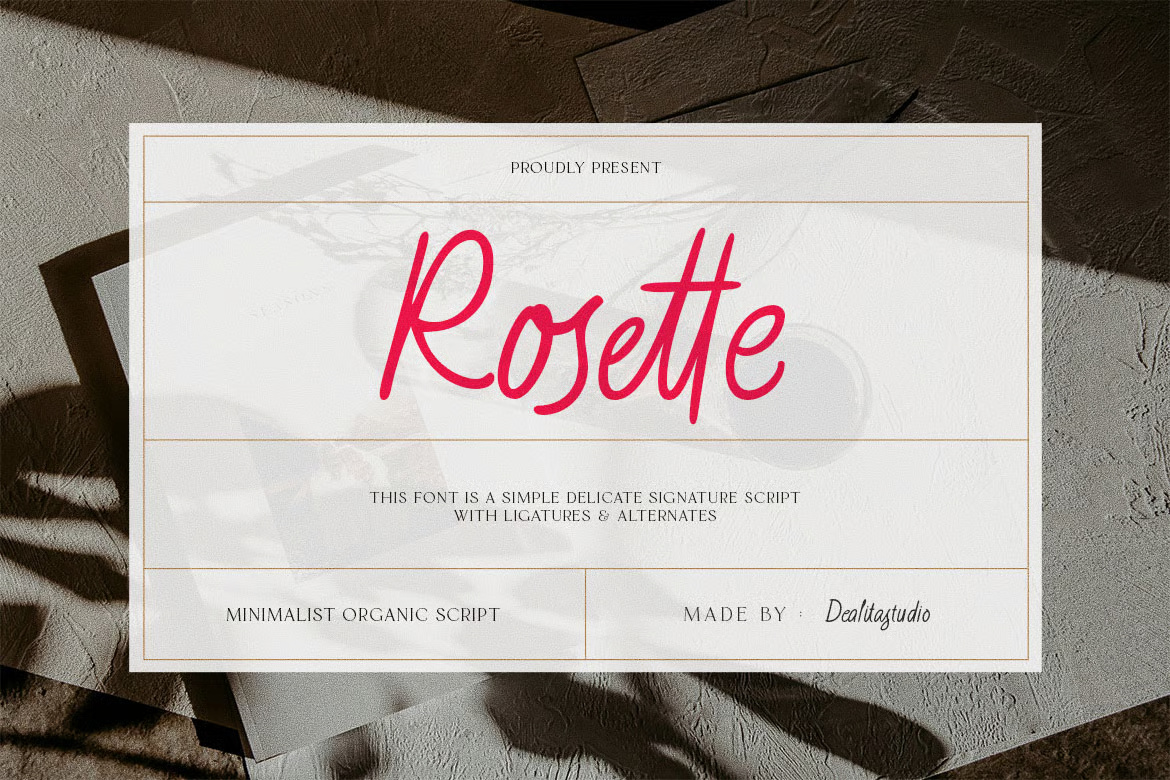
Rosette Handwriting Font
Rosette is an elegant, organic handwriting font that adds warmth, authenticity, and charm to personal projects, blogs, and branding.
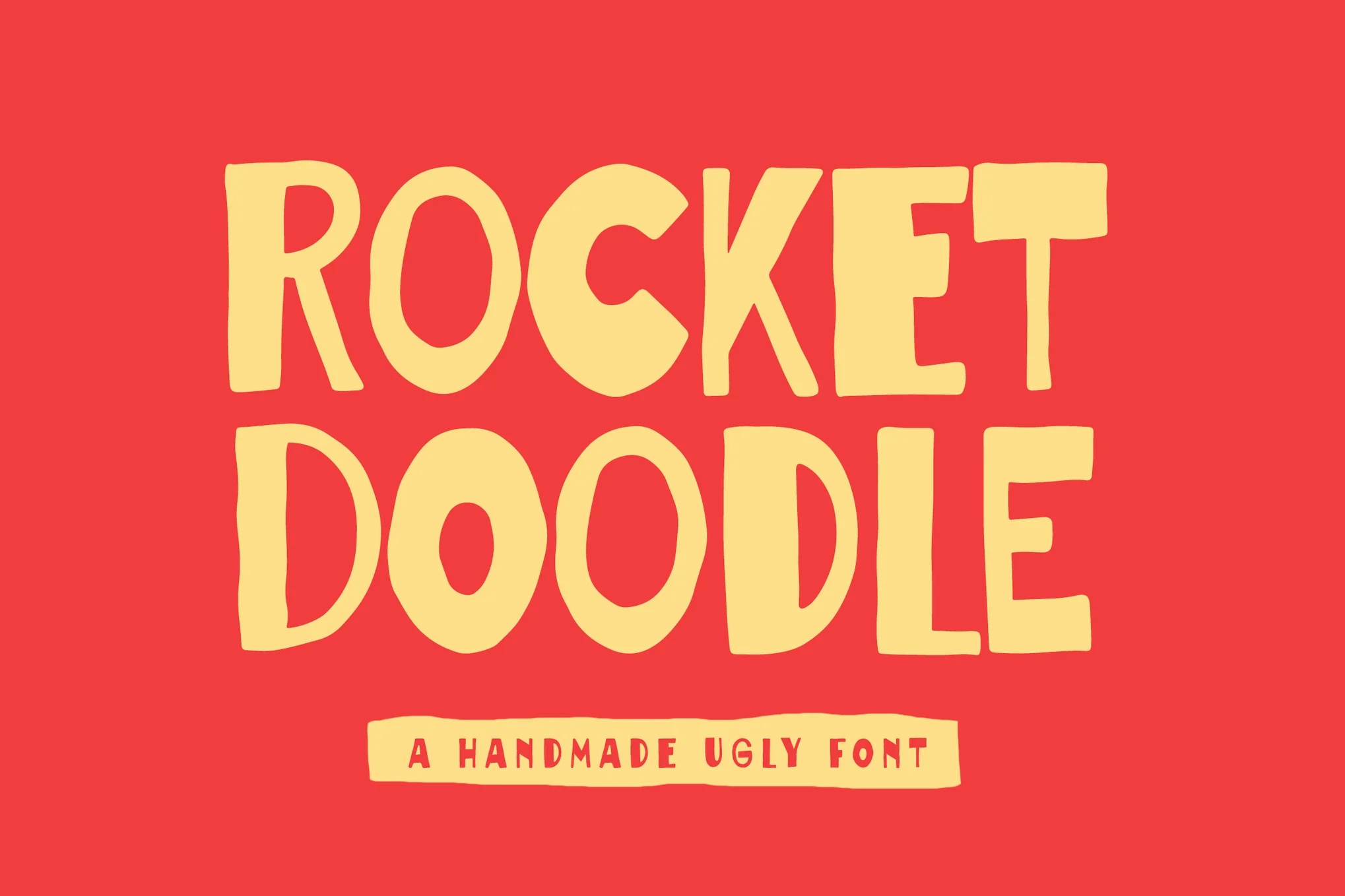
Rocket Doodle a Handwriting Ugly Font
Rocket Doodle is a quirky, ugly-style handwriting font perfect for bold branding, posters, packaging, and expressive creative work.
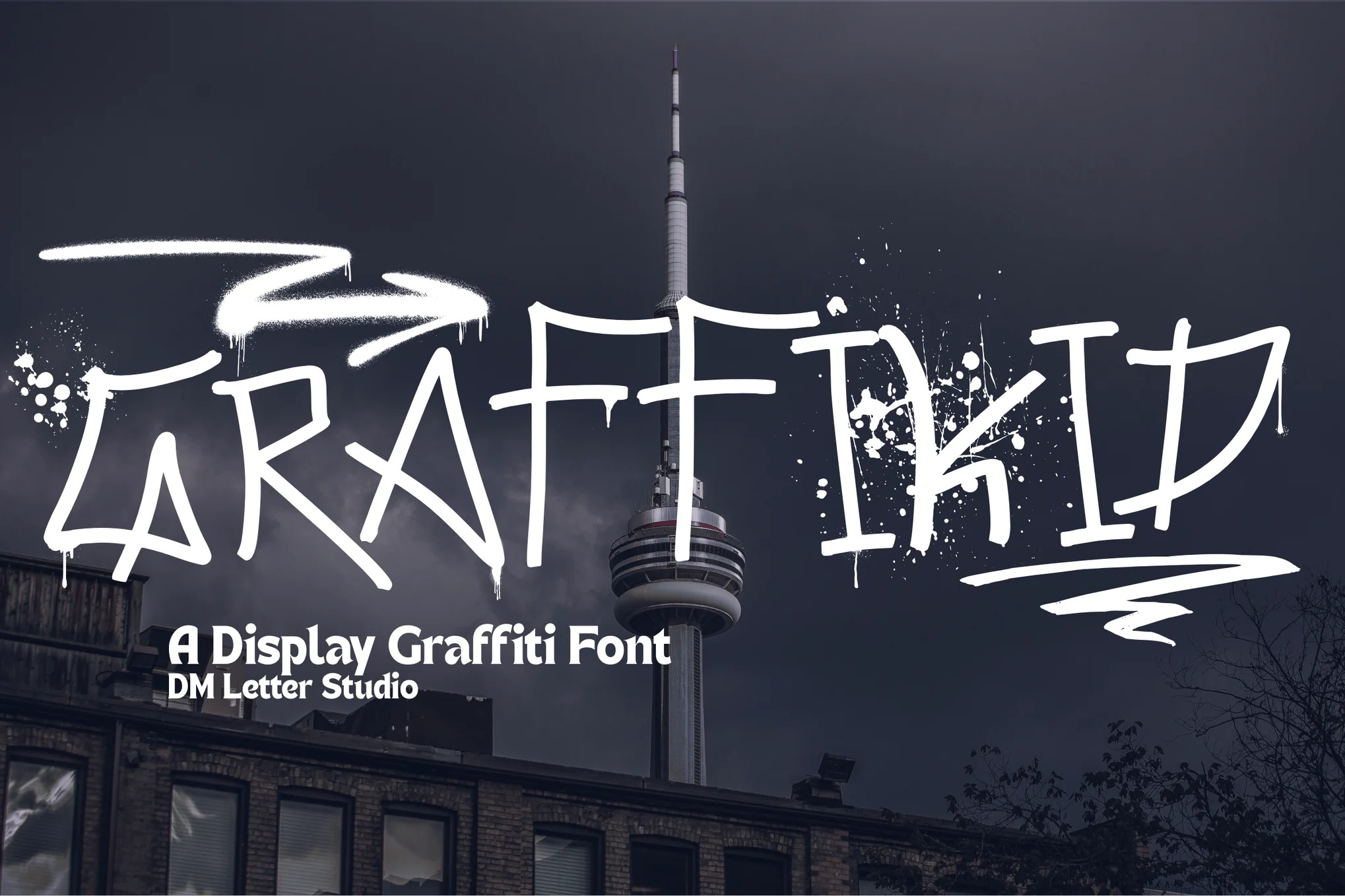
Graffikid Urban Edge Bold Elegance Modern
Graffikid is a bold graffiti font blending street-style energy with clean design—perfect for logos, packaging, and urban visuals.
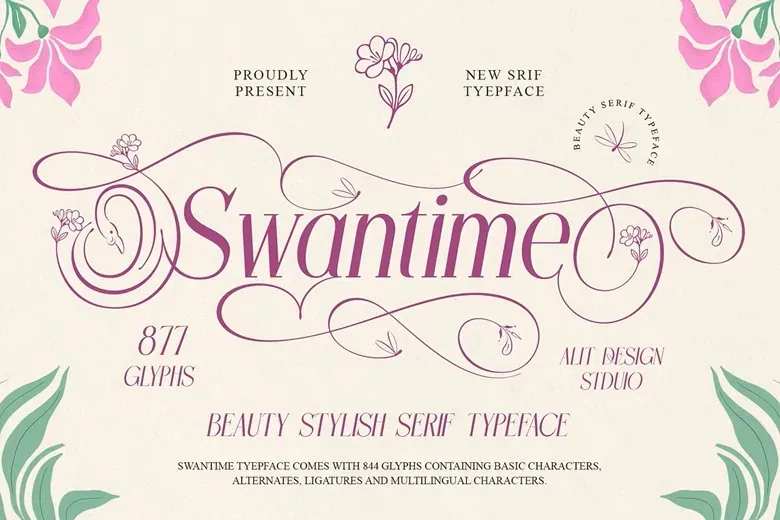
Swantime Font
Swantime is a graceful serif font blending modern elegance with nature-inspired ornaments like swans, flowers, butterflies, and dragonflies.
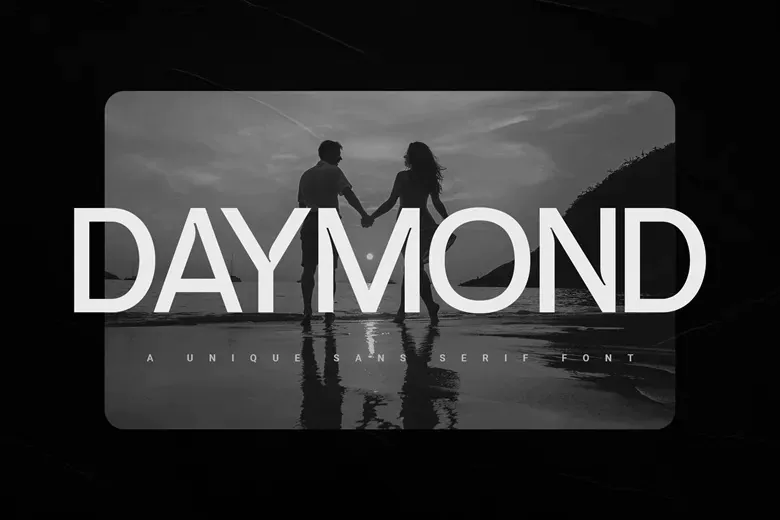
Daymond Font
Daymond is a clean, modern sans serif typeface with sharp lines, balanced proportions, and versatile elegance for various design applications.
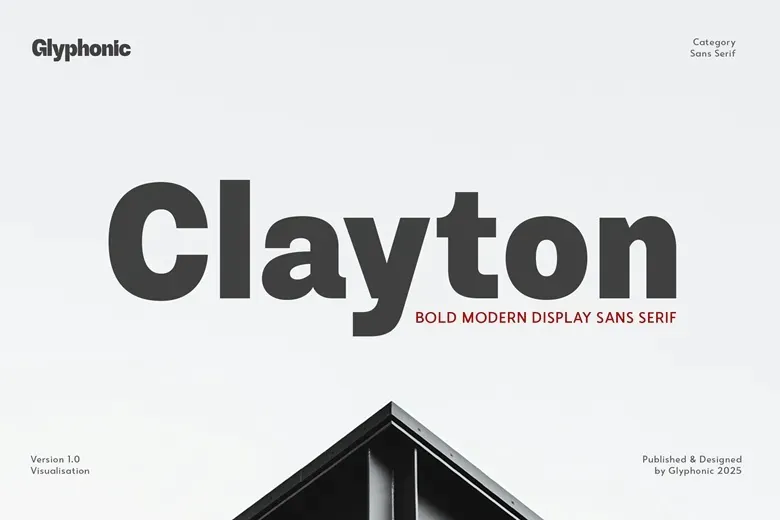
Clayton Font
Clayton is a modern, high-contrast sans serif typeface perfect for branding, headlines, packaging, and elegant editorial design projects.
Salena Font
Salena is a modern sans serif font with clean lines, perfect for branding, headlines, and timeless, elegant visual design.
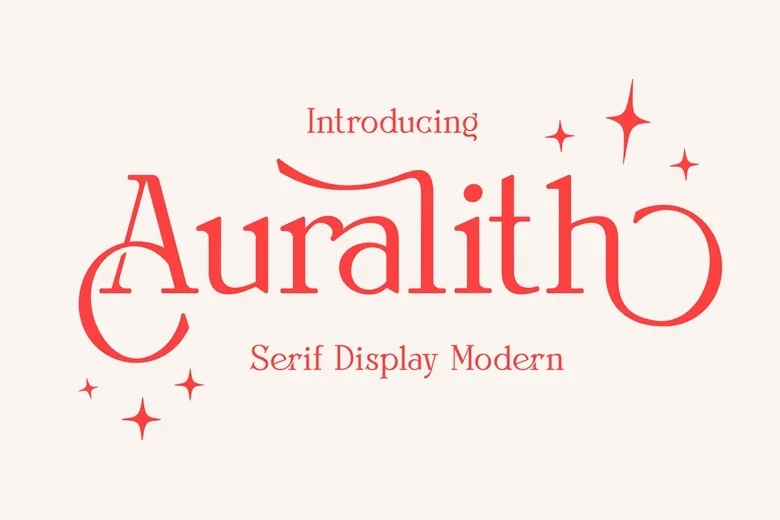
Auralith Font
Auralith is a refined modern serif font with elegant curves, perfect for logos, headlines, branding, and editorial design work.
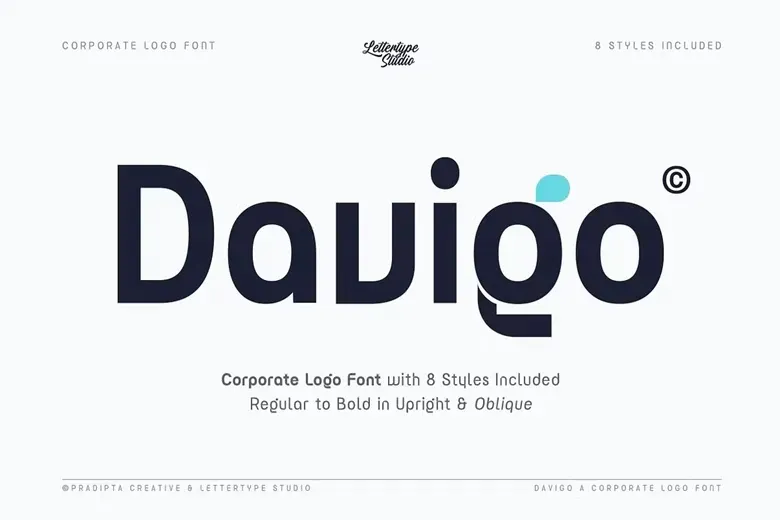
Davigo Font
Modern geometric sans-serif with clean curves and balanced forms, ideal for bold headlines, logos, branding, and editorial design.
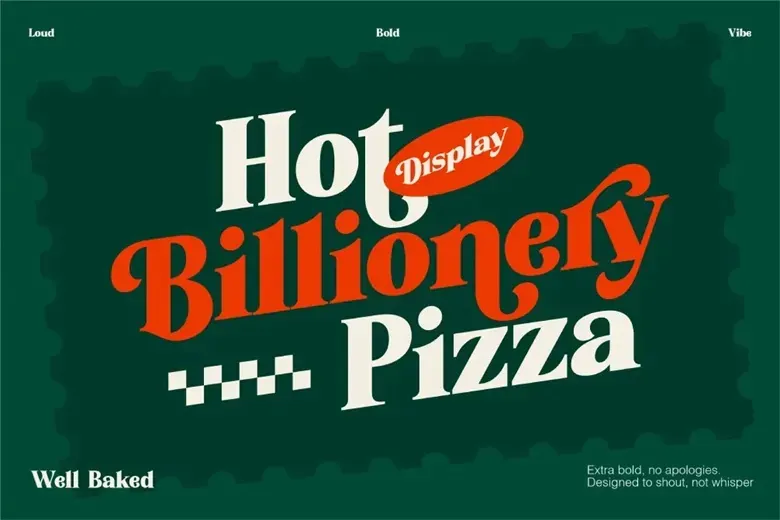
Billionery Font
Billionery is a bold, luxurious serif font perfect for headlines, logos, and high-end designs demanding strong visual impact.
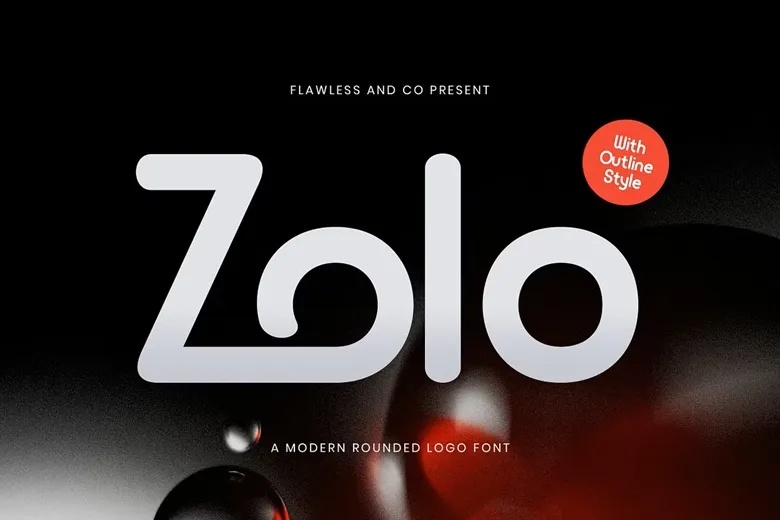
Zolo Font
ZOLO is a clean, rounded sans serif font perfect for tech branding, modern logos, and elegant visual identities.
Jinada Font
Bold and modern, Jinada is a sans serif font with sharp edges, perfect for impactful headlines, logos, and bold branding.
Meillona Font
Meillona is a romantic serif font featuring flowing forms, floral swashes, and nature-inspired details like foliage and dragonflies.
Velvet Mango Font
Velvet Mango is a bold retro serif font with gooey curves and vintage charm, perfect for playful, nostalgic design projects.
Yaendin Font
Yaendin is a modern serif font with balanced thick and thin strokes, offering elegance, readability, and a distinctive visual flair.
Tenshoku Font
Playful brush font inspired by Japanese art, perfect for logos, packaging, posters, apparel, and more with dynamic handcrafted flair.
Pardell Font
Pardell is a modern sans serif font with elegant curves, perfect for chic branding, editorials, logos, and fashion designs.
Glass Edge Font
Glass Edge is a bold grotesque sans serif font with sharp, modern curves—perfect for tech branding, UI, and packaging.
Vanzi Font
Vanzi blends retro charm with modern flair through sleek lines and swashes—perfect for stylish headlines, logos, and branding visuals.
GC Regain Font
GC Regain is a bold slab serif font with vintage strength and modern confidence, perfect for impactful headlines, branding, and design.
GC Horizon Font
Horizon is a bold, condensed typeface with edgy flair—perfect for headlines, branding, packaging, and modern, sophisticated visuals.
Exotisal Display Font
A modern display font combining artistic curves and geometric structure, perfect for luxury branding, editorial design, boutique packaging, and serene yet bold visual identities.
Geova Font Family